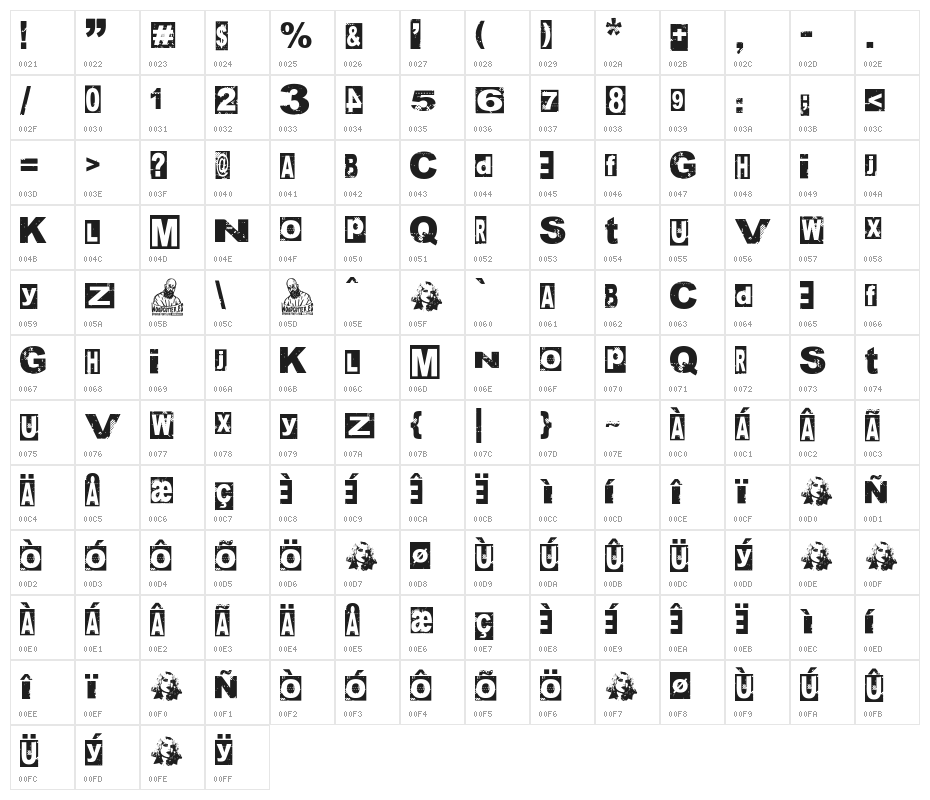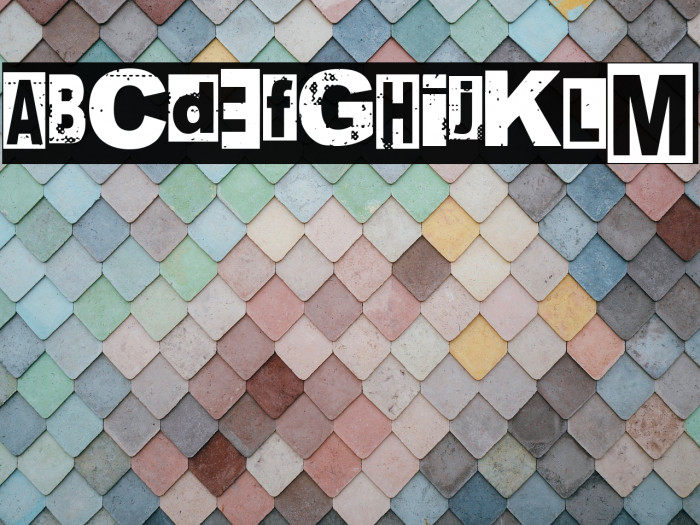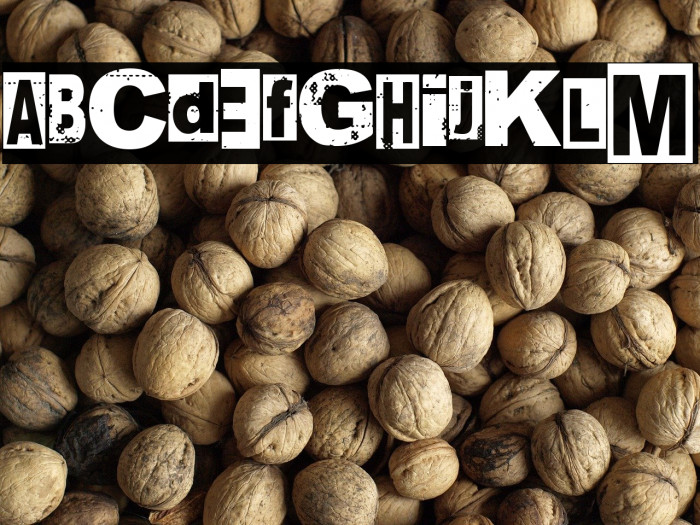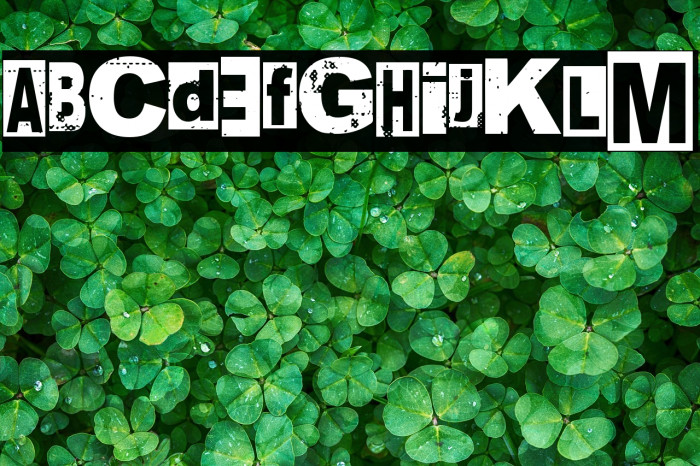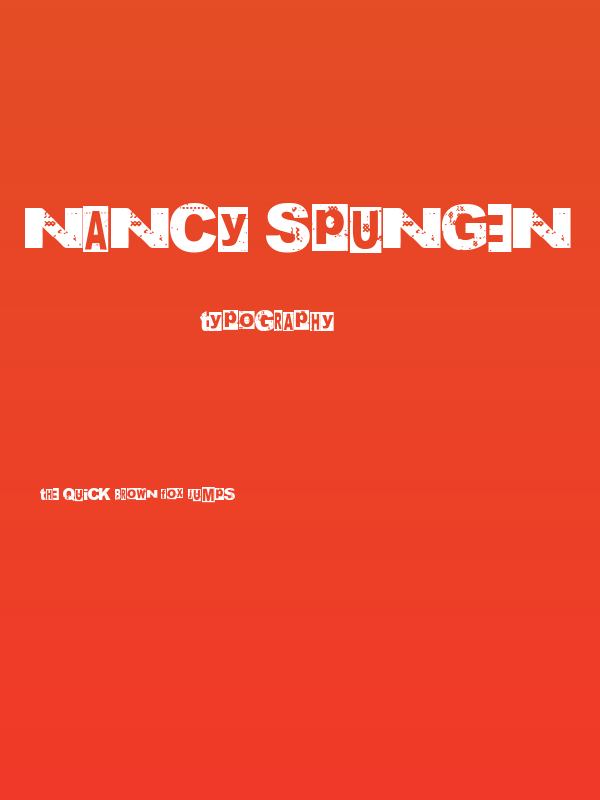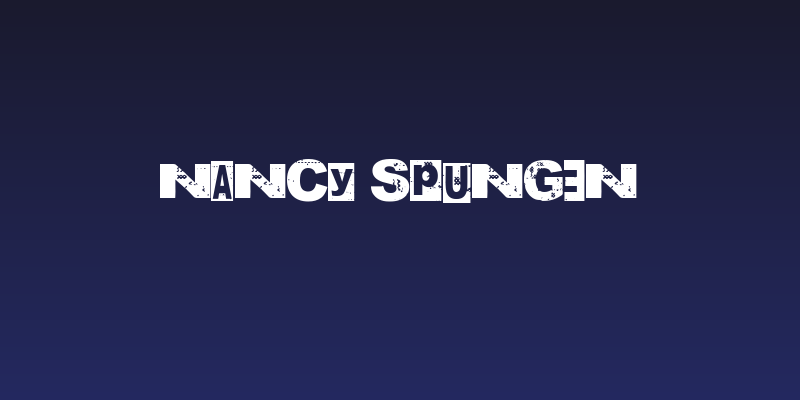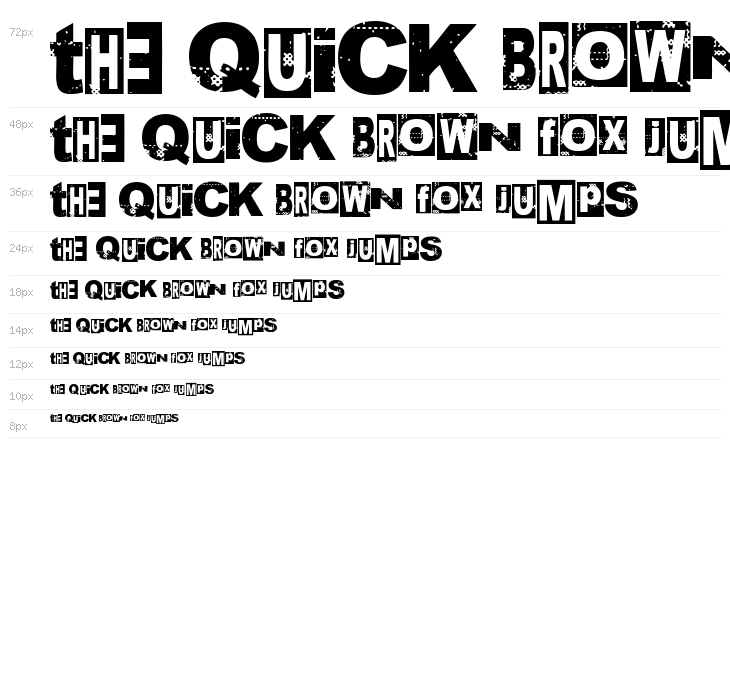
Nancy Spungen Font
Nancy Spungen Description
This font features a bold and distressed style, with each character appearing as if it has been stamped or printed with a rough texture. The letters are uppercase and lowercase, with numbers and special characters included. The design is highly decorative, with a grunge aesthetic that adds a sense of edginess and urban flair. The characters are enclosed in rectangular shapes, enhancing the boldness and making them stand out. This font is ideal for projects that require a strong visual impact and a modern, rebellious vibe.
| Overall Style | Modern, Grunge |
| Proposed Projects | Ideal for music album covers, posters, streetwear branding, and edgy graphic designs. |